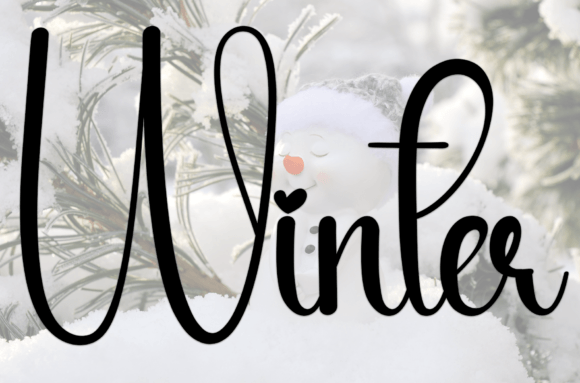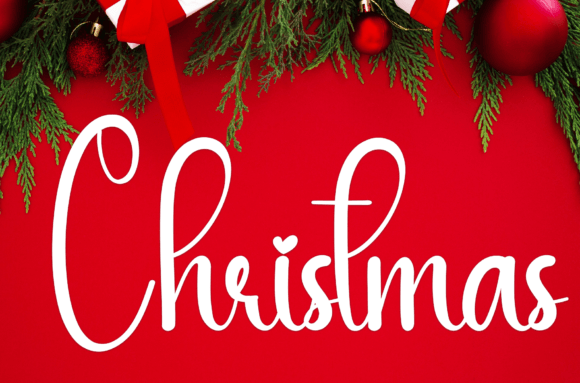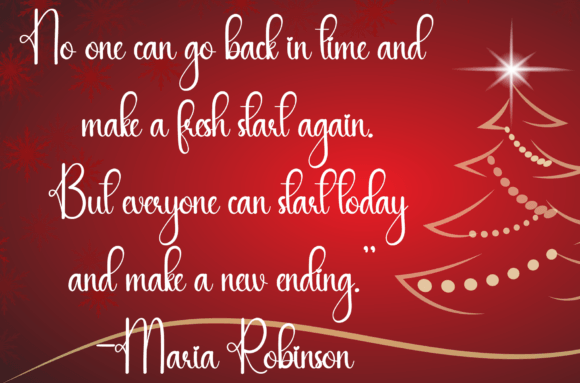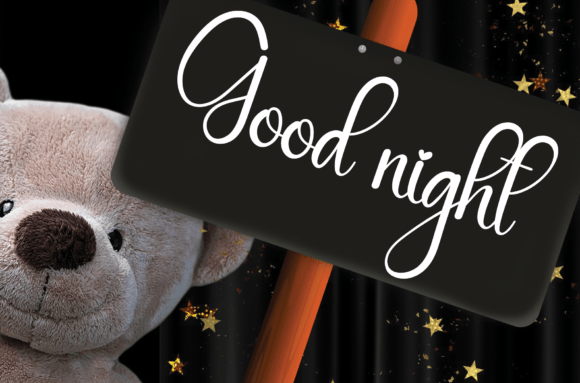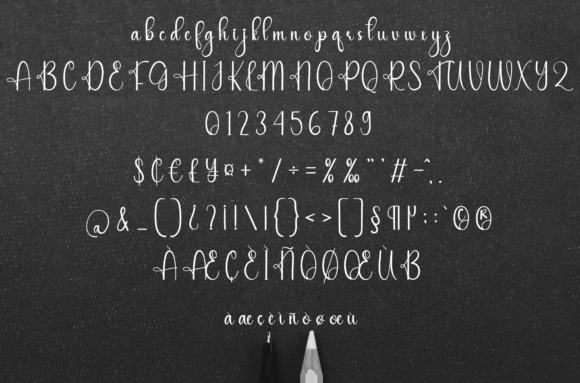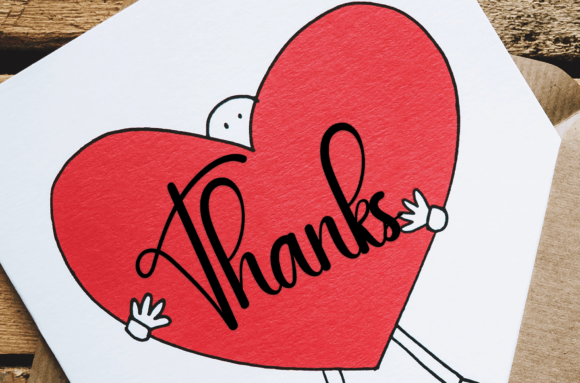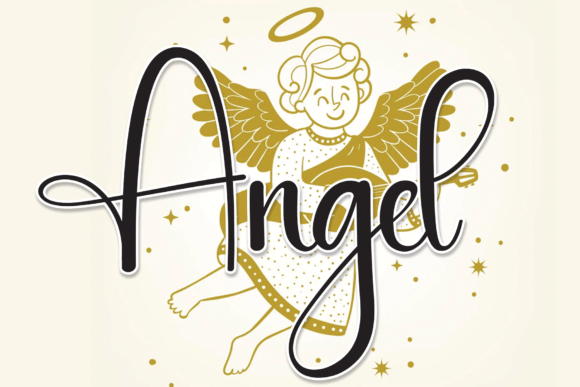
Introducing Angel Font: The Sweet and Friendly Handwritten Font for Joyful Designs
Are you looking for a font that can add a touch of warmth and friendliness to your designs? Look no further than Angel Font, a beautiful handwritten font that’s perfect for creating joyful and celebratory designs. In this article, we’ll take a closer look at Angel Font, its features, and how you can use it to create stunning designs for weddings, cards, and more.
What is Angel Font?
Angel Font is a sweet and friendly handwritten font that’s designed to bring a sense of fun and relaxation to your designs. With its smooth and flowing lines, this font is ideal for creating designs that require a personal touch. Whether you’re designing wedding invitations, birthday cards, or any other type of celebration, Angel Font is the perfect choice.
Key Features of Angel Font
So, what makes Angel Font so special? Here are some of its key features:
- Handwritten style: Angel Font has a beautiful handwritten style that’s perfect for creating personal and heartfelt designs.
- Sweet and friendly: This font has a warm and friendly tone that’s ideal for creating designs that require a touch of personality.
- Fun and relaxed: Angel Font is perfect for creating designs that require a sense of fun and relaxation.
- High-quality: This font is designed to be high-quality and easy to read, making it perfect for use in a variety of designs.
Use Cases for Angel Font
So, how can you use Angel Font in your designs? Here are some ideas to get you started:
- Wedding invitations: Angel Font is perfect for creating beautiful and personalized wedding invitations that set the tone for the big day.
- Birthday cards: This font is ideal for creating fun and celebratory birthday cards that are sure to bring a smile to the recipient’s face.
- Party invitations: Whether you’re planning a baby shower, bridal shower, or any other type of party, Angel Font is the perfect choice for creating invitations that are fun and festive.
- Social media graphics: This font is also great for creating social media graphics that require a personal touch, such as Facebook posts, Instagram stories, and more.
Tips for Using Angel Font
Here are some tips for using Angel Font in your designs:
- Pair with other fonts: Angel Font pairs well with other fonts, such as sans-serif fonts, to create a unique and interesting design.
- Use in combination with images: This font looks great when used in combination with images, such as photographs or illustrations.
- Experiment with colors: Angel Font looks great in a variety of colors, so don’t be afraid to experiment and find the perfect color scheme for your design.
In conclusion, Angel Font is a beautiful handwritten font that’s perfect for creating joyful and celebratory designs. With its sweet and friendly tone, this font is ideal for use in wedding invitations, birthday cards, party invitations, and more. Whether you’re a designer or a crafter, Angel Font is a great addition to your font collection.